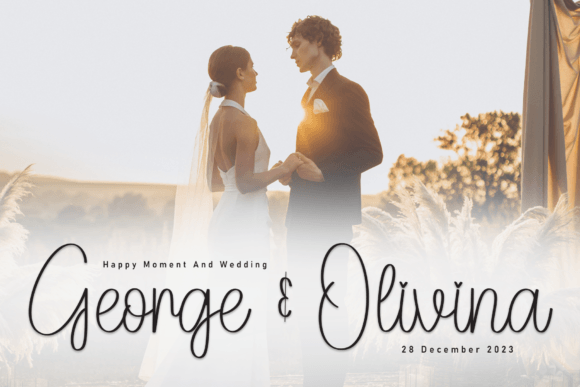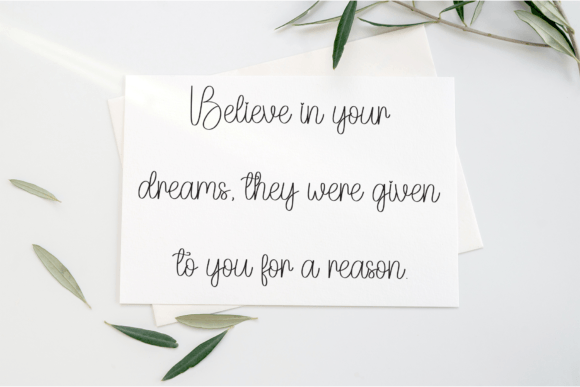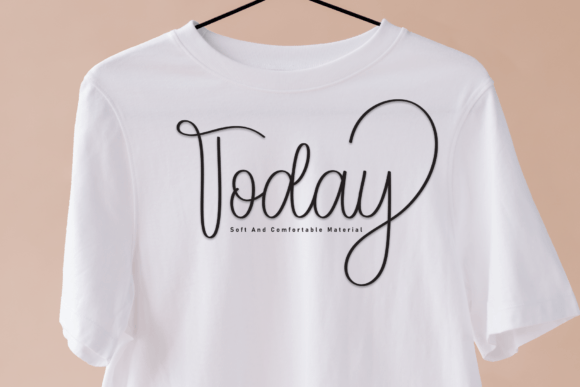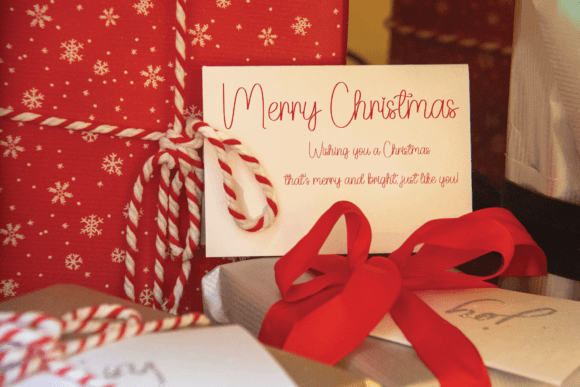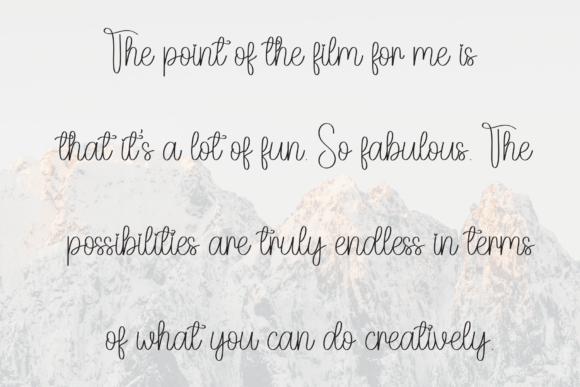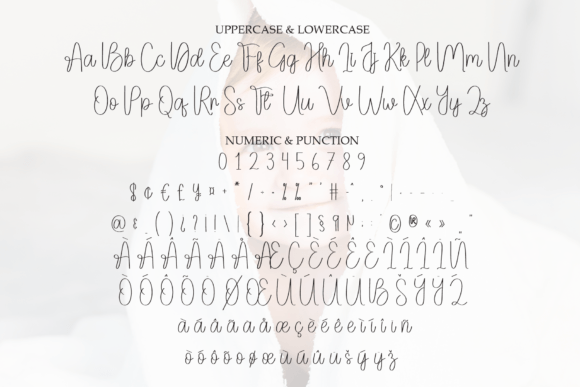
Baby Font: The Ultimate Choice for Elegant and Charming Designs
When it comes to creating beautiful and sophisticated designs, the right font can make all the difference. For designers and crafters looking for a font that exudes elegance and charm, Baby Font is an excellent choice. This stunning font is perfect for a wide range of design projects, from wedding invitations and thank you cards to quotes, greeting cards, logos, business cards, and more.
The Characteristics of Baby Font
Baby Font is a beautiful, handwritten font that is both elegant and charming. Its delicate and refined strokes make it perfect for designs that require a touch of sophistication. The font’s classic and timeless look ensures that it will never go out of style, making it a great investment for designers and crafters.
Why Choose Baby Font?
There are many reasons why Baby Font is a popular choice among designers and crafters. Here are just a few:
• Elegant and Charming: Baby Font adds a touch of elegance and charm to any design. Its beautiful, flowing strokes make it perfect for creating sophisticated and refined designs.
• Versatile: Baby Font is incredibly versatile and can be used for a wide range of design projects. Whether you’re creating wedding invitations, greeting cards, or logos, this font is sure to impress.
• Timeless: Unlike some fonts that may go out of style quickly, Baby Font has a classic and timeless look that ensures it will remain popular for years to come.
• Easy to Read: Despite its elegant and refined strokes, Baby Font is easy to read, making it perfect for designs that require a lot of text.
Using Baby Font in Your Designs
Baby Font is easy to use and can be incorporated into a wide range of design projects. Here are a few ideas to get you started:
• Wedding Invitations: Add a touch of elegance and sophistication to your wedding invitations with Baby Font. This font is perfect for creating beautiful and refined wedding stationery.
• Greeting Cards: Create stunning greeting cards for special occasions such as birthdays, anniversaries, and holidays with Baby Font.
• Quotes and Posters: Add a touch of elegance to your quotes and posters with Baby Font. This font is perfect for creating inspiring and motivational designs.
• Logos and Business Cards: Use Baby Font to create beautiful and sophisticated logos and business cards. This font is sure to make a lasting impression on your clients and customers.
Tips for Working with Baby Font
Here are a few tips for working with Baby Font:
• Use it Sparingly: While Baby Font is a beautiful font, it can be overwhelming if used too much. Use it sparingly to create a focal point in your design.
• Pair it with Other Fonts: Baby Font pairs well with other fonts, such as sans-serif fonts. Experiment with different font combinations to create a unique and interesting design.
• Adjust the Size: Adjust the size of Baby Font to create visual interest in your design. Use larger sizes for headings and smaller sizes for body text.
In conclusion, Baby Font is a beautiful and elegant font that is perfect for designers and crafters looking to add a touch of sophistication to their designs. Its classic and timeless look ensures that it will never go out of style, making it a great investment for any designer or crafter. With its versatility, elegance, and charm, Baby Font is sure to become a favorite font in your collection.